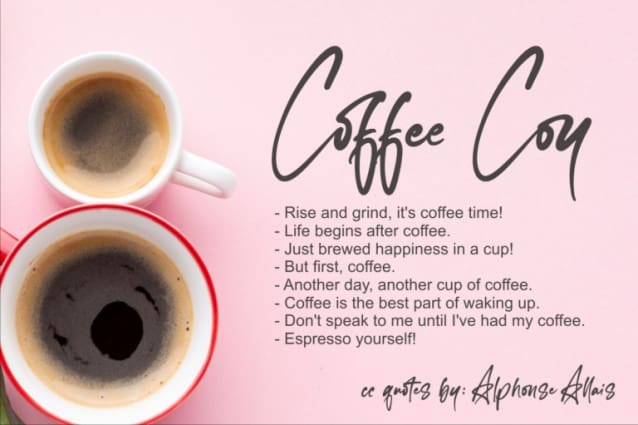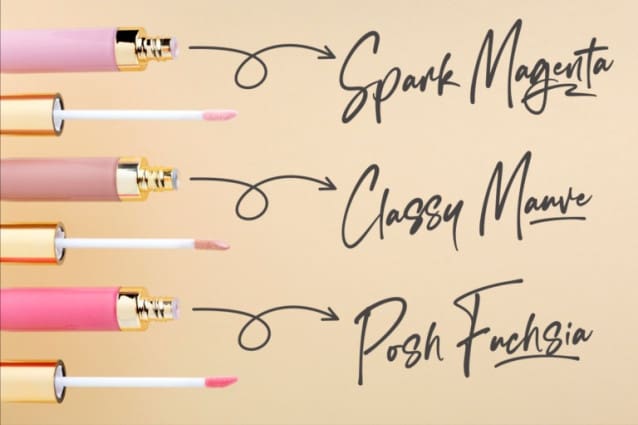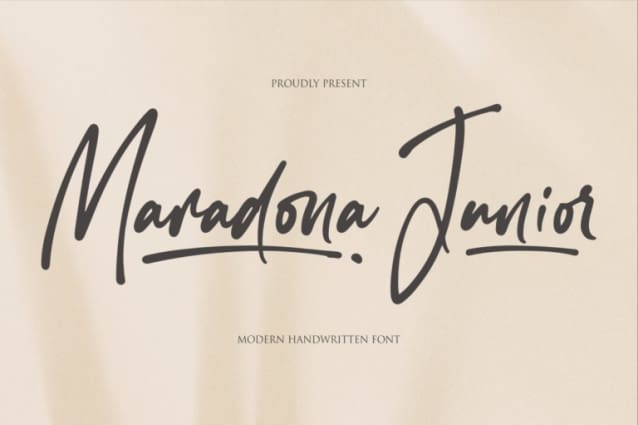
Maradona Junior Font
Maradona Junior Font a stylish signature font. It features ligatures characters that will take your projects to the next level!
This font is PUA code which means you can easily access all the glyphs that are full of natural! It also features many special features including glyphs. font designs that are made for various vector designs, printing such as digital wedding blogs, online shops, social media, while printing can be used in the field of product clothing, accessories, bags, pins, logos, business cards, watermarks and many others …
so it can make your product look natural and attractive, and also Multilingual support!!!